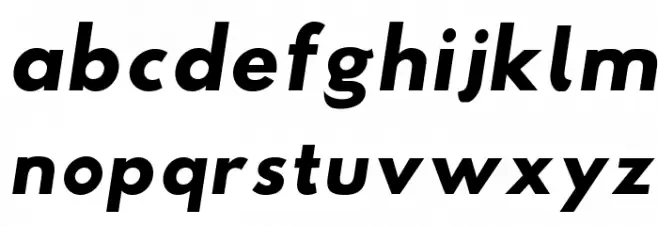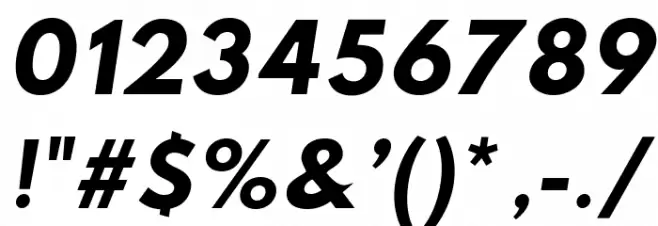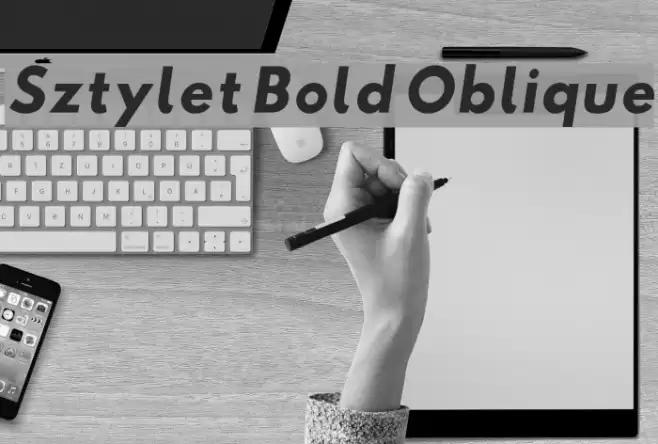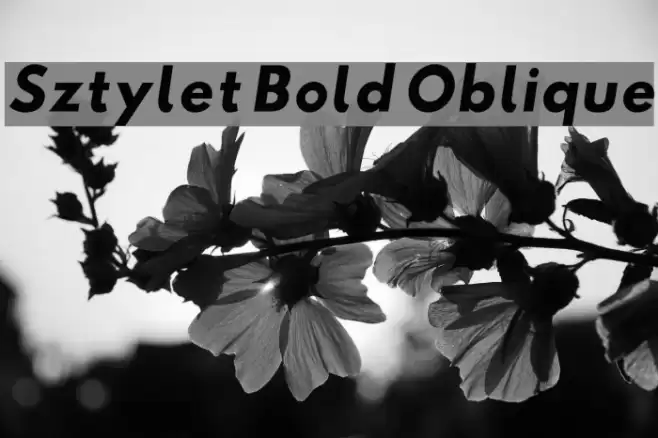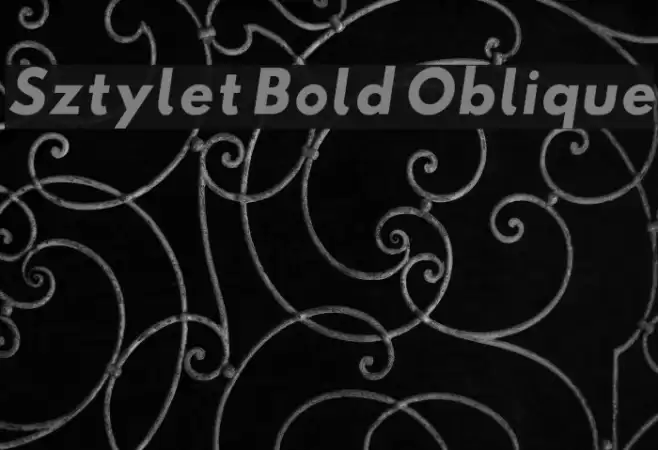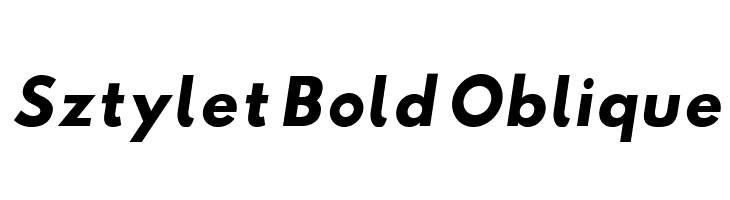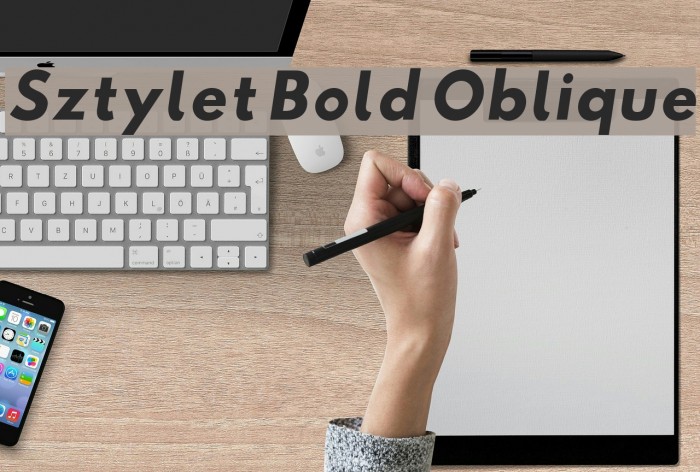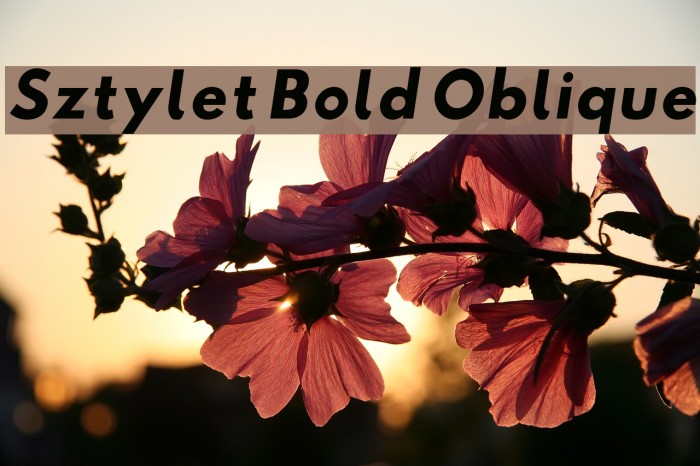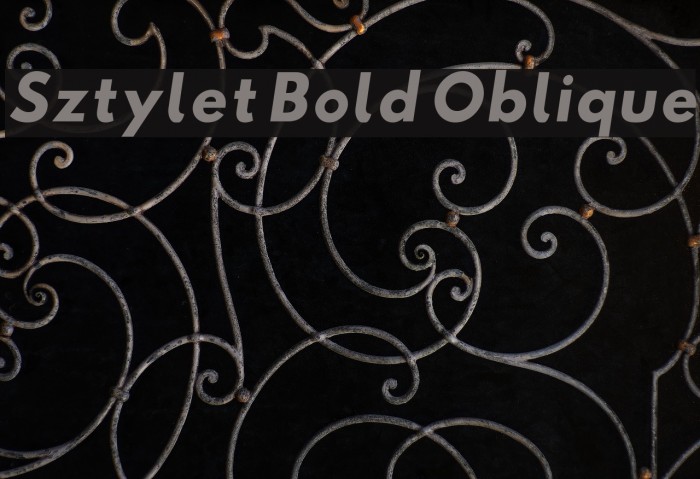
Sztylet Bold Oblique
This font features a bold and oblique style, characterized by its strong and dynamic appearance. The letters are slightly slanted, giving a sense of motion and energy. The strokes are thick and consistent, providing a robust and impactful look. The uppercase and lowercase letters maintain a uniform style, with rounded edges that soften the boldness. The numerals are clear and legible, matching the overall aesthetic. Special characters are well-integrated, maintaining the font's cohesive design. This font is suitable for projects that require a bold statement and a modern touch.
A bold, oblique font with a dynamic and modern style.